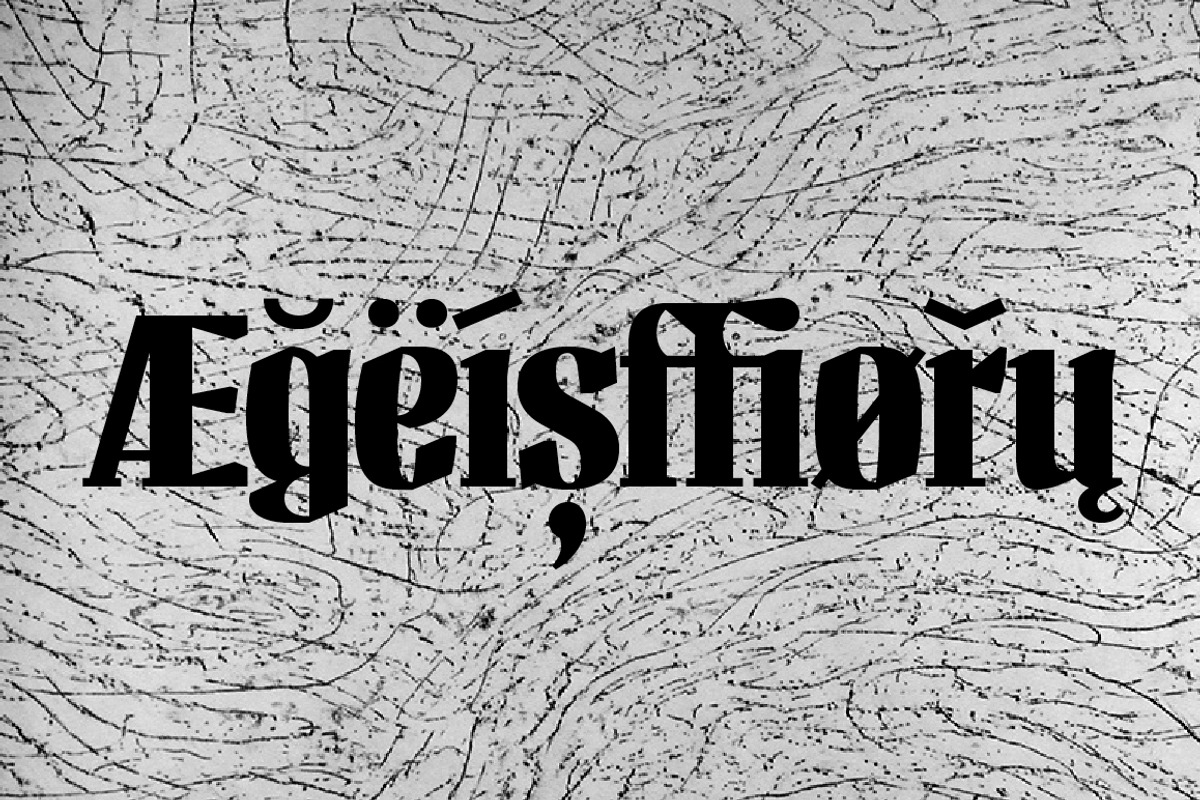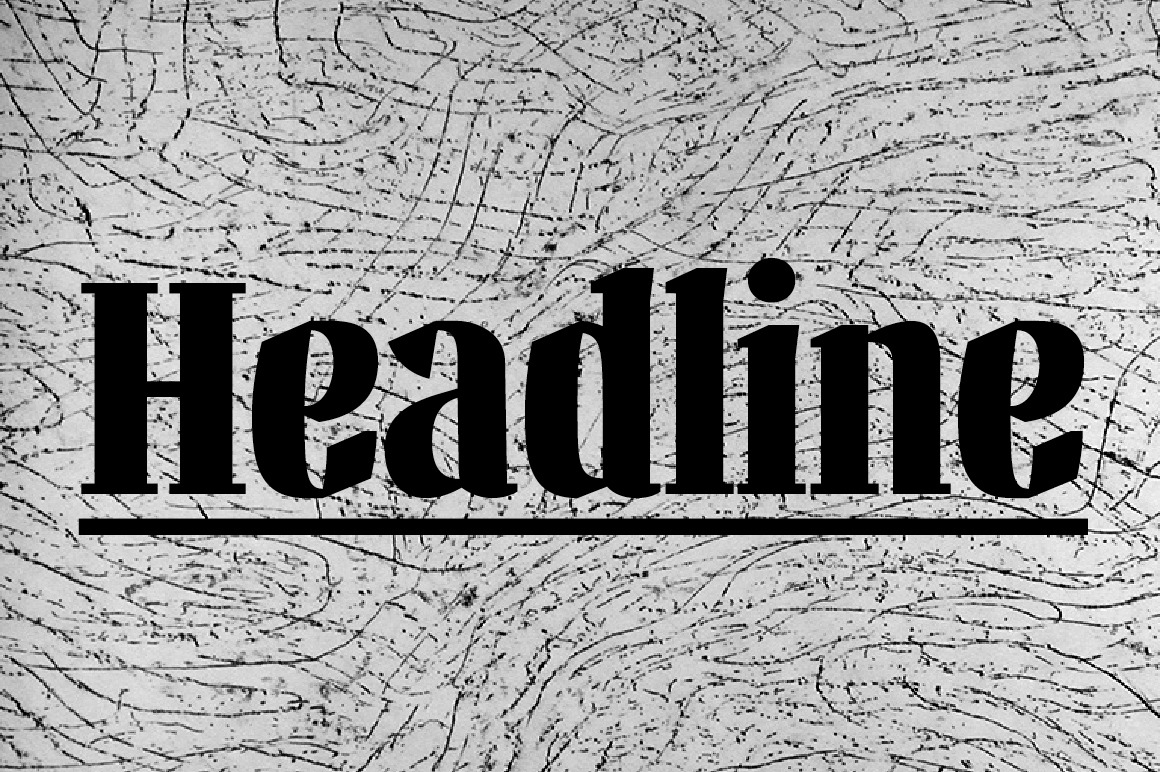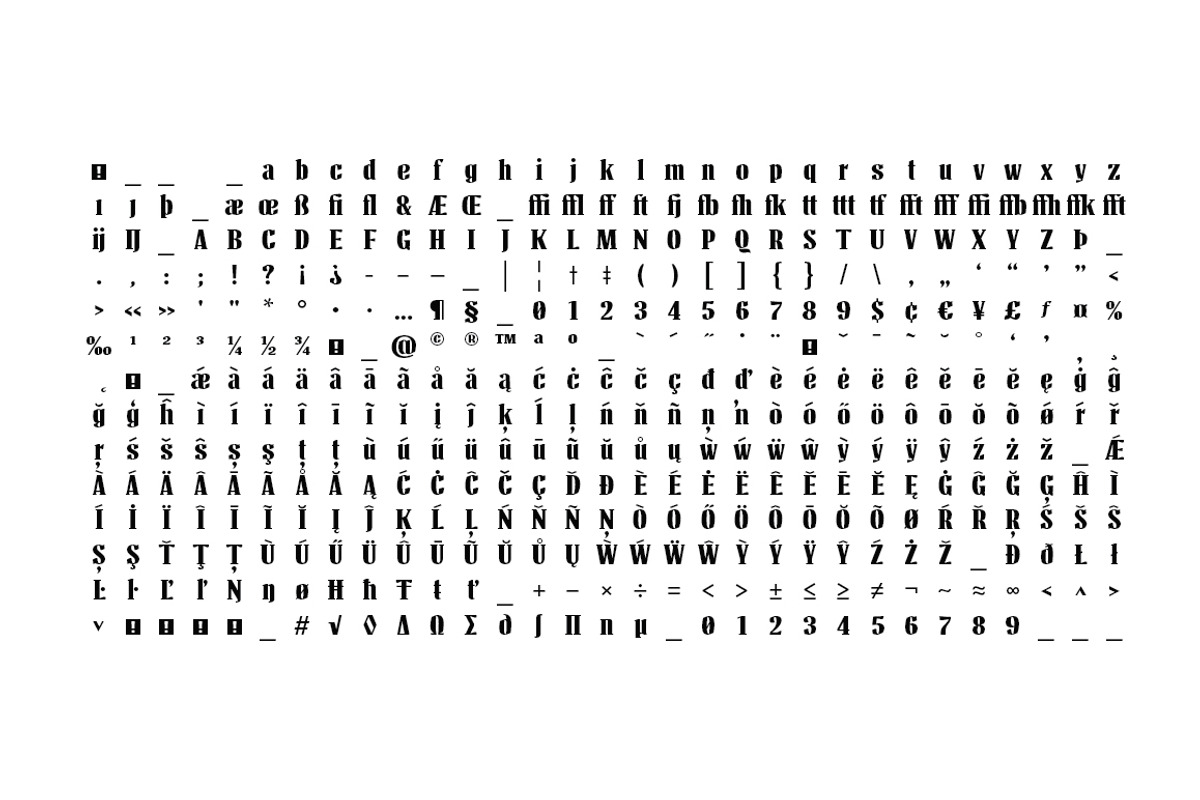
Headline Font
“NF-Headline” is a new Headline font with a strong, unique character – suitable for editorial and logo designs, posters, bookcovers, websites, apps and more.
The font contains ~400 glyphs and supports a wide range of languages. It’s kerning has been made manually and with care.